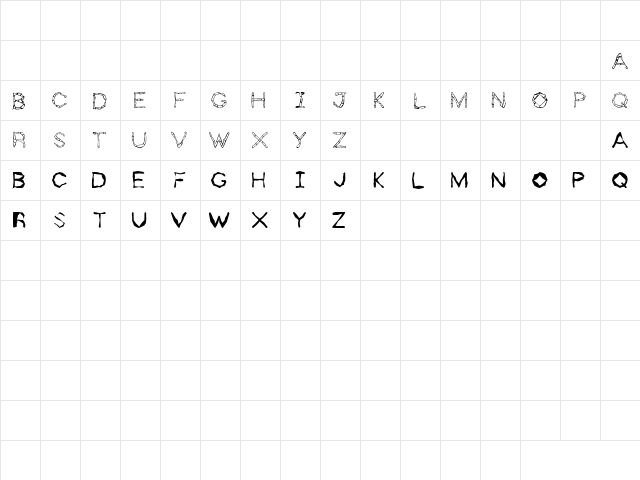
Zholly Display Regular
Design Context for Zholly Display Typeface
Zholly Display brings ornamental detail and strong personality to headlines and identities, where visual impact matters more than quiet functionality.
Font Pairing: Pair with a clean neutral sans-serif for body copy to let Zholly Display's character lead without overwhelming the composition.
Pro Tip: Treat Zholly Display as the centrepiece of your typographic hierarchy. One strong heading set in a decorative face can carry an entire layout.